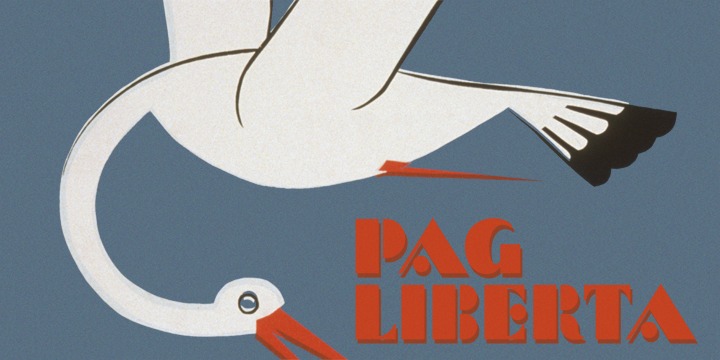
Inspired by retro lettering on advertising and propaganda posters from the 30s to 50s.
This is perfect font for your retrospective project.
PAG Liberta